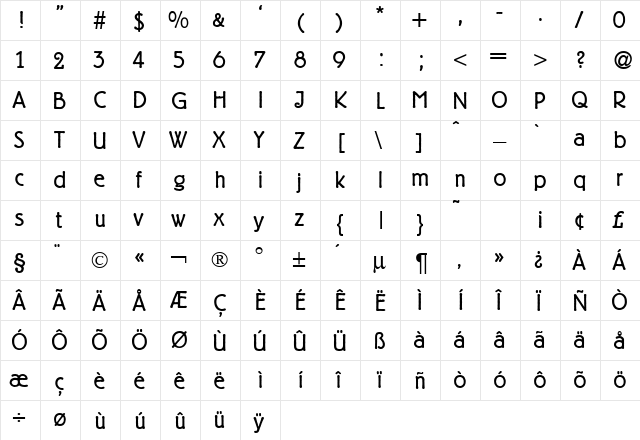
BeginnerDB Normal
Design Context for BeginnerDB Typeface
BeginnerDB takes a measured approach to typography — its balanced proportions and neutral character make it a reliable workhorse for both digital and print work.